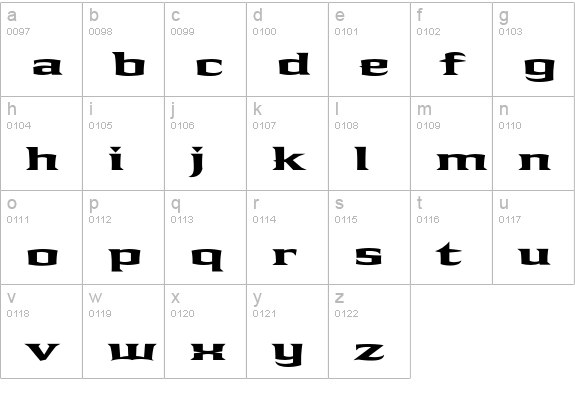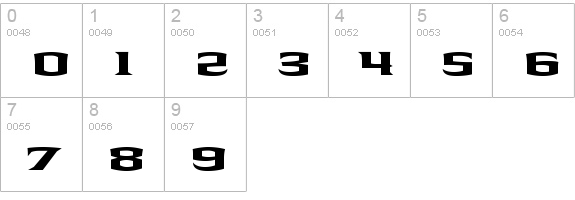
Shogun-Bold Font Details
Shogun-Bold is a strong, high-contrast variant in the Shogun typeface family \xE2\x80\x94 well suited to headlines, attention-grabbing titles, and strong calls-to-action.
Shogun-Bold is a captivating and powerful font that exudes a sense of strength and authority. Its bold and commanding design makes it perfect for headlines, logos, and any other creative project that requires a touch of boldness. With its intricate letterforms and sharp edges, this font demands attention and leaves a lasting impression. What makes Shogun-Bold even more exceptional is the fact that it is freely available to download at FontsMarket.com. This means that you can effortlessly incorporate this stunning font into your projects without any hassle or cost. Whether you are a professional designer or an aspiring artist, Shogun-Bold provides you with the opportunity to elevate your work to new heights, all while staying within your budget. The versatility of Shogun-Bold is another reason why it stands out among other fonts. Its clean and modern aesthetic allows it to seamlessly adapt to various styles and themes, making it suitable for a wide range of design purposes. Whether you are creating a sleek and contemporary website or a bold and eye-catching poster, Shogun-Bold is sure to make a lasting impact. In addition to its striking appearance, Shogun-Bold also offers exceptional readability, ensuring that your message is effectively communicated to your audience. Its strong and distinctive letterforms ensure that each character is easily discernible, even at smaller sizes. This ensures that your text remains legible and visually appealing, no matter the context. So, if you are in search of a bold and captivating font that is not only visually stunning but also free to download, look no further than Shogun-Bold. With its commanding presence and versatility, this font is guaranteed to elevate your design projects and leave a lasting impression. Don't miss out on the opportunity to enhance your work with this remarkable font, available for free at FontsMarket.com.